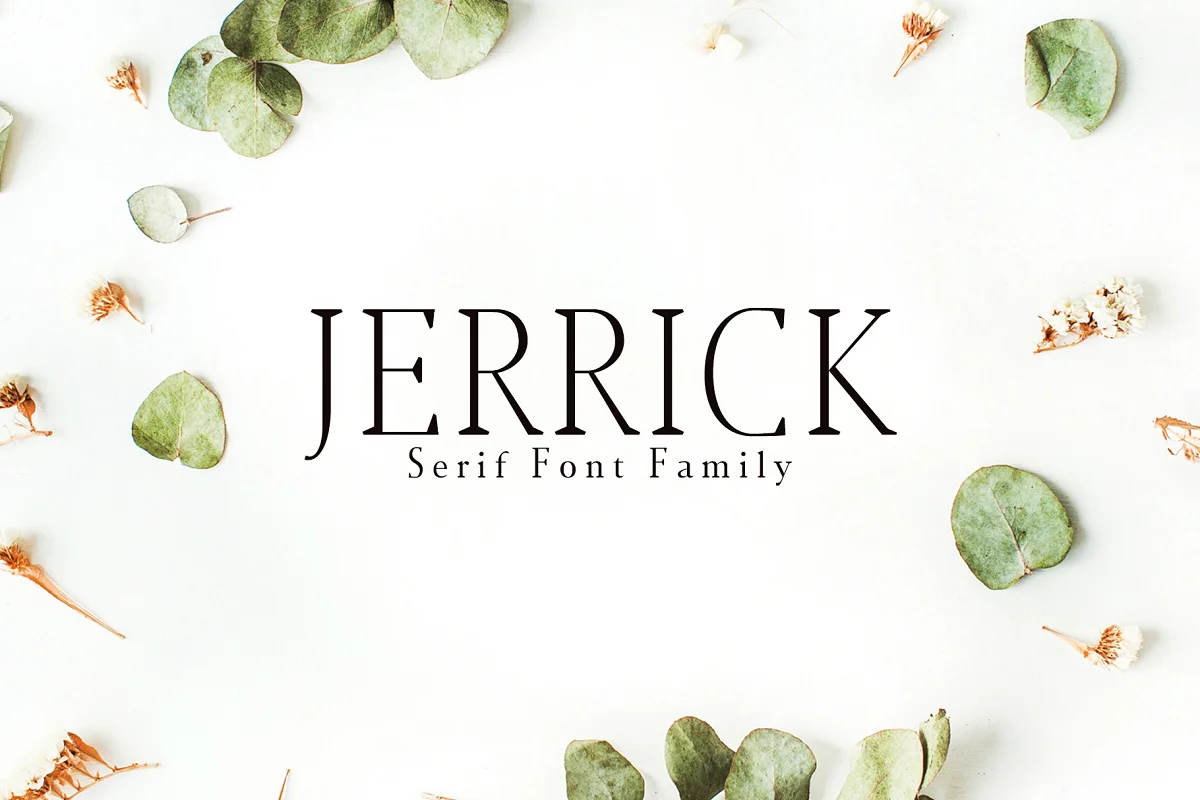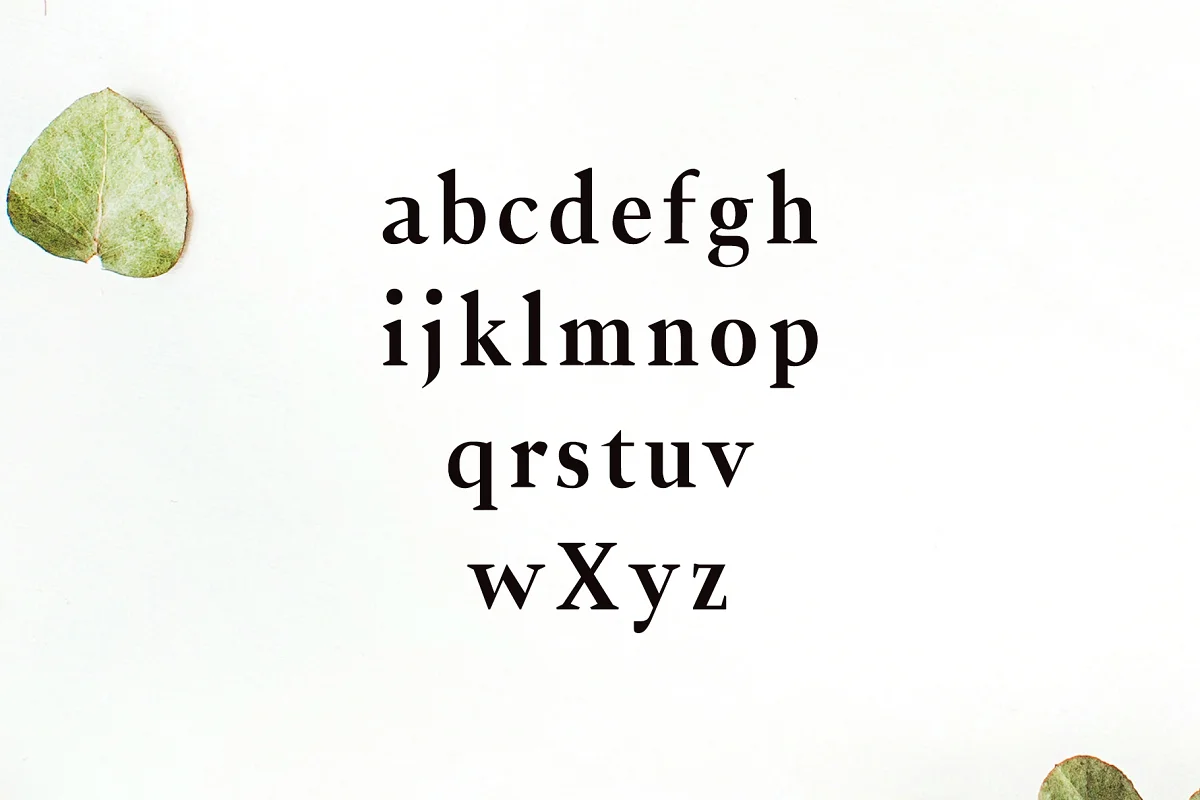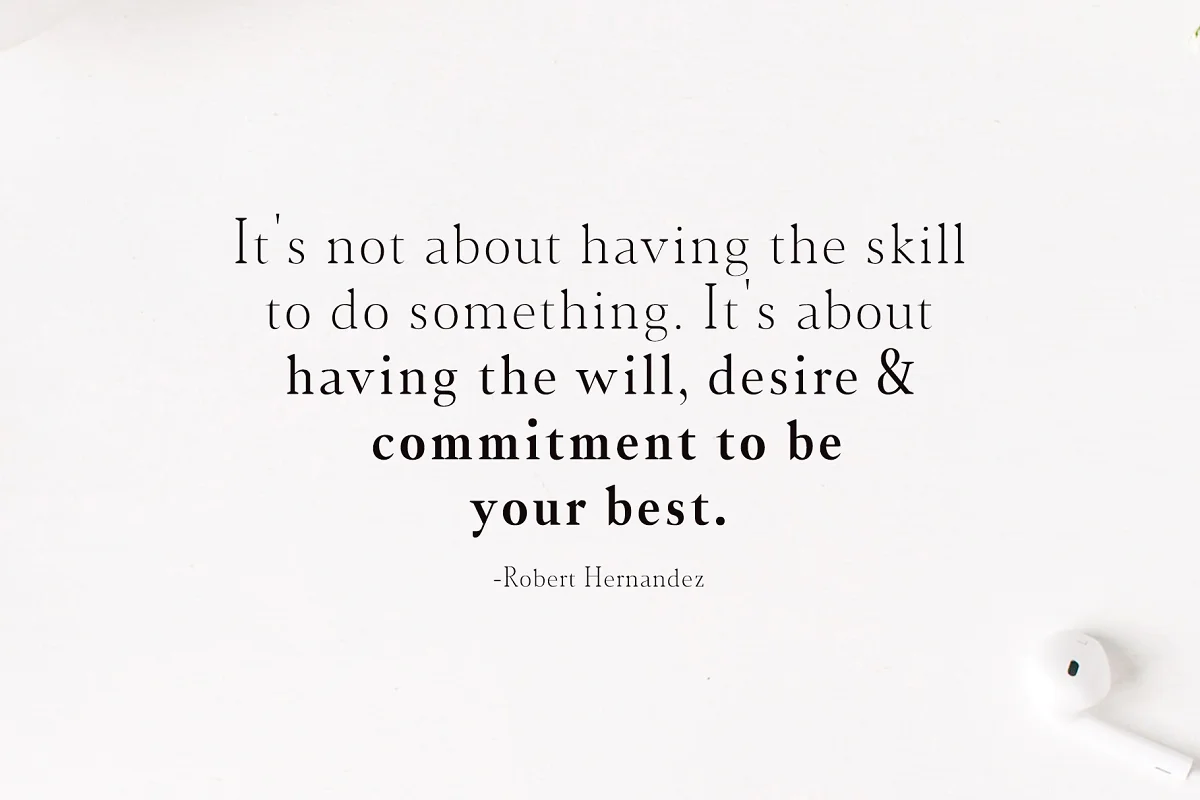
About the Jerrick Serif 6 Font
Jerrick Serif 6 Font Family Pack features a unique and modern serif look and feel. Perfect for gorgeous logos, titles, web layouts, and branding.
It looks gorgeous in all caps with a wide-set spacing if you want to try a classy look, or beautiful on its own in capital and lowercase letters for something completely timeless.
- Font Weight: Regular, Light, Bold, Distorted, and Italics
- Uppercase Multilingual Letters
- Lowercase Multilingual Letters
- Numbers & Punctuation
- Non-English Characters ( Latin Supplement + Latin Extended-A )